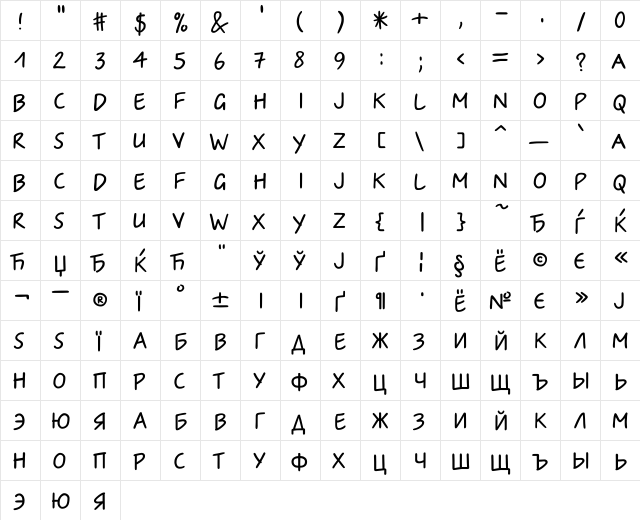
IrinaCTT Normal Font Preview
IrinaCTT Normal
Design Context for IrinaCTT Typeface
IrinaCTT takes a measured approach to typography — its balanced proportions and neutral character make it a reliable workhorse for both digital and print work.